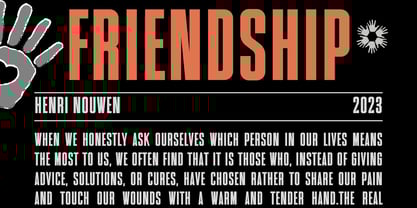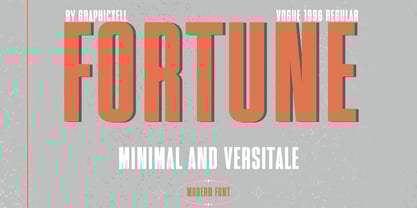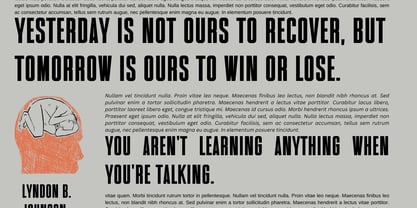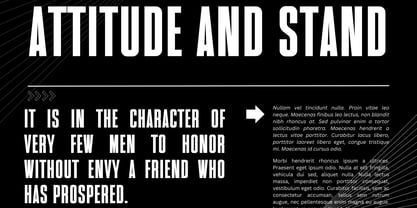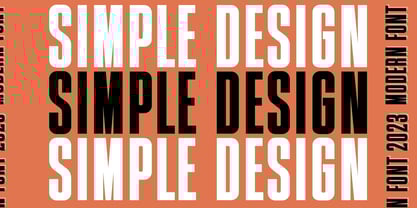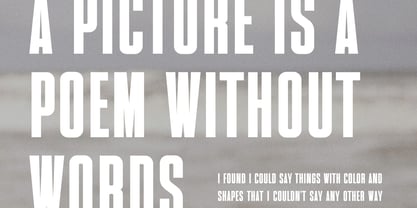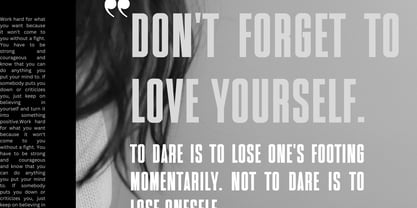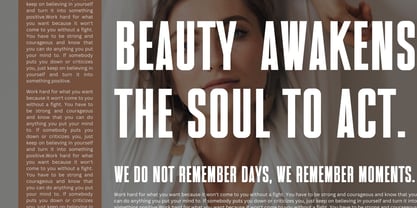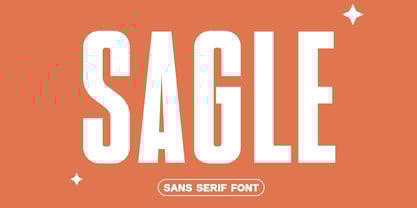
Sagle
by Graphicxell
The Sagle Font Family was designed by Graphicxell and published by Graphicxell. Sagle contains 2 styles and family package options.
Sagle Modern Sans Serif Font Typeface — Clean, Bold & Versatile
Meet Sagle Modern Sans Serif, a sleek and modern font designed to make your projects stand out with clarity and style. Moreover, this typeface features a clean geometric design combined with bold, thick shapes. It works perfectly for headlines, logos, and branding that demand attention.
Sagle offers two style variants: Regular and Italic. Whether you want a professional look or a dynamic twist, this font delivers consistent elegance every time.
Why choose Sagle? It caters to modern creatives who need a versatile typeface that shines across many platforms. For example, it fits magazines, product packaging, advertisements, and esports branding perfectly.
Key Features:
• Clean geometric shapes that create a polished look
• Thick, bold letters ideal for headlines and standout text
• Two style variants: Regular and Italic for flexible design
• Perfect for corporate branding, agency presentations, and logos
• Highly readable for both print and digital media
• Suitable for magazines, brochures, invitations, esports, games, and more
In addition, Sagle maximizes usability. It sharpens brand identity with a modern edge and helps your designs grab attention quickly. Whether you work on editorial layouts, food packaging, sports apparel, or creative templates, Sagle elevates your designs with ease.
Designers: Graphicxell